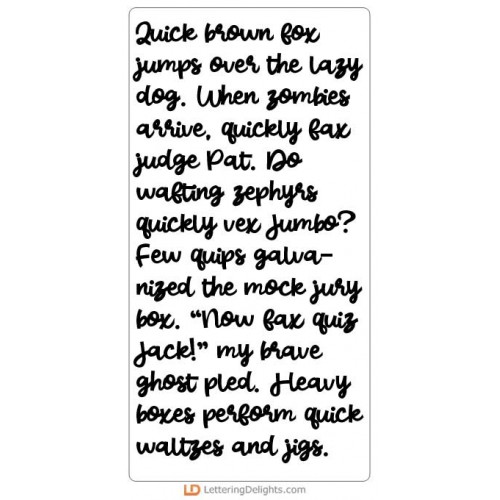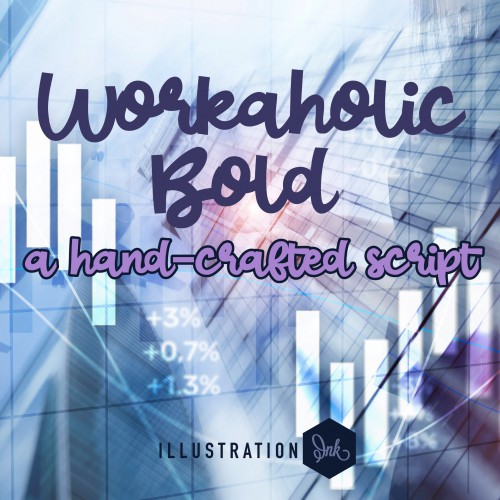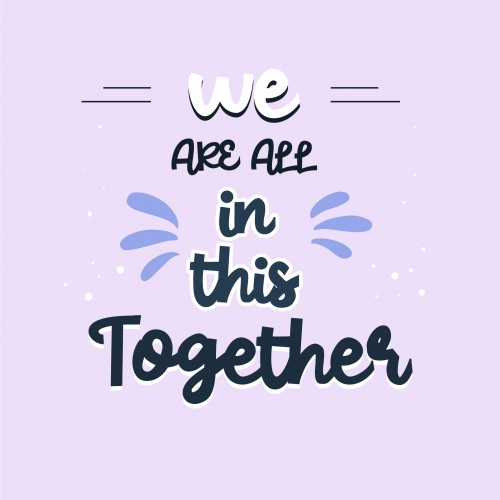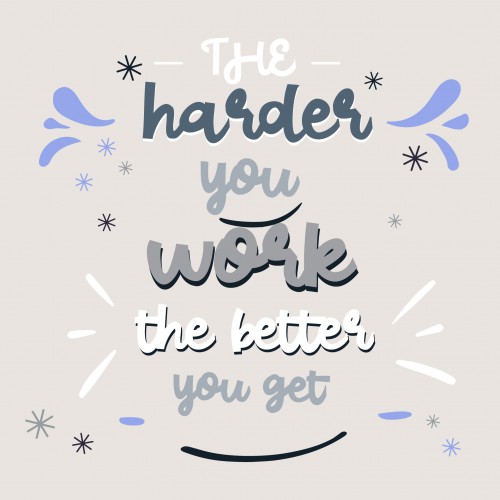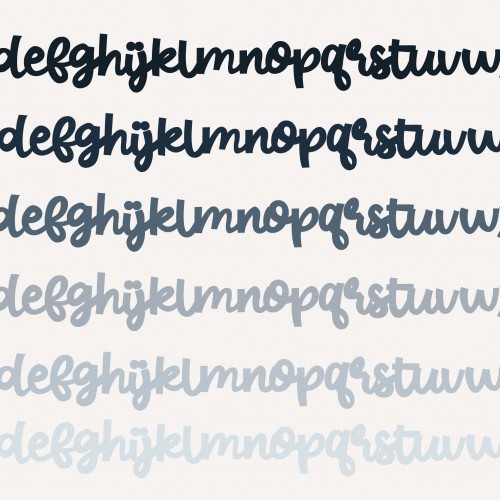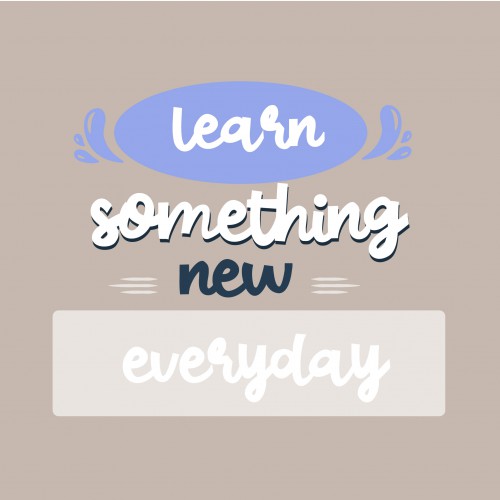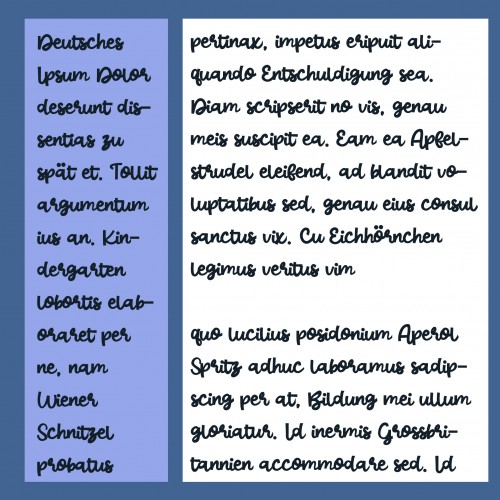
PN Workaholic Bold - FN
Thie big, bold, hand-written script is a bit bouncy...
Little Dinos - Lucky - AL
This adorable alphabet coordinates with our Little Dinos Lucky Collection...
Little Dinos - Girl - PP
This adorable paper pack coordinates with our Little Dinos Girl Collection...
Little Dinos - Racers - PP
This adorable paper pack coordinates with our Little Dinos Racers Collection...
Little Dinos - Lucky - PP